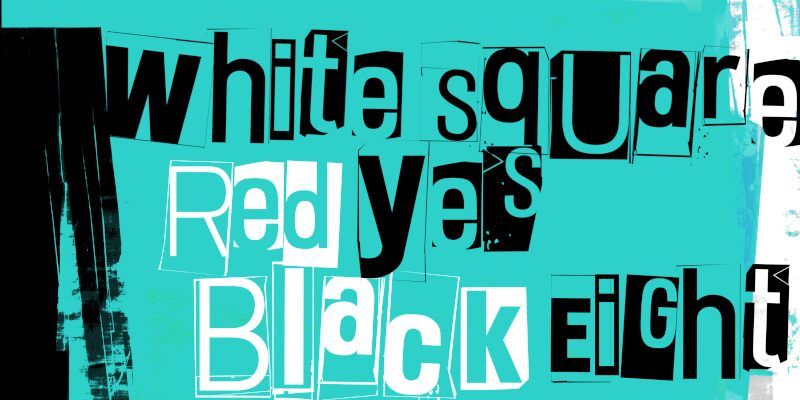
White Square Red Yes Black Eight Pingpong Czcionka
White Square Red Yes Black Eight Pingpong font by Juha Korhonen is a free bold distorted display font. Part of the White Square Red Yes Black Eight family, it stands out with black square tiles punched by crisp white letterforms, like a stuttering marquee. The edges wobble, spacing compresses, and the baseline bounces-creating a gritty, high-contrast rhythm that reads like glitch in motion.
Using White Square Red Yes Black Eight Pingpong Pingpong, headlines snap with attitude on rave flyers, experimental album covers, glitch-art posters, zines, streetwear graphics, and YouTube thumbnails. This free font thrives oversized; give it breathing room or slightly loosen tracking to let the squares click into place. Pair with a plain, workhorse grotesk for body copy to keep the chaos anchored.
White Square Red Yes Black Eight